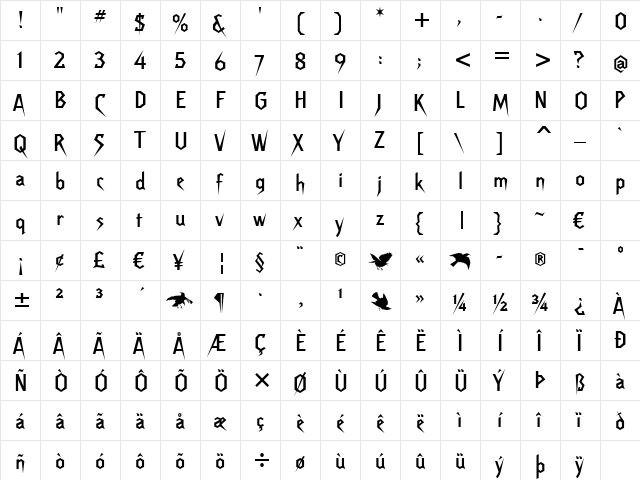
Raven Evermore Extra BT Regular
Design Context for Raven Evermore Extra BT Typeface
Raven Evermore Extra BT is a composed and adaptable typeface that performs quietly and consistently across a wide range of design contexts.
Pro Tip: Use Raven Evermore Extra BT in both headline and body roles to test its range before committing to a single application.